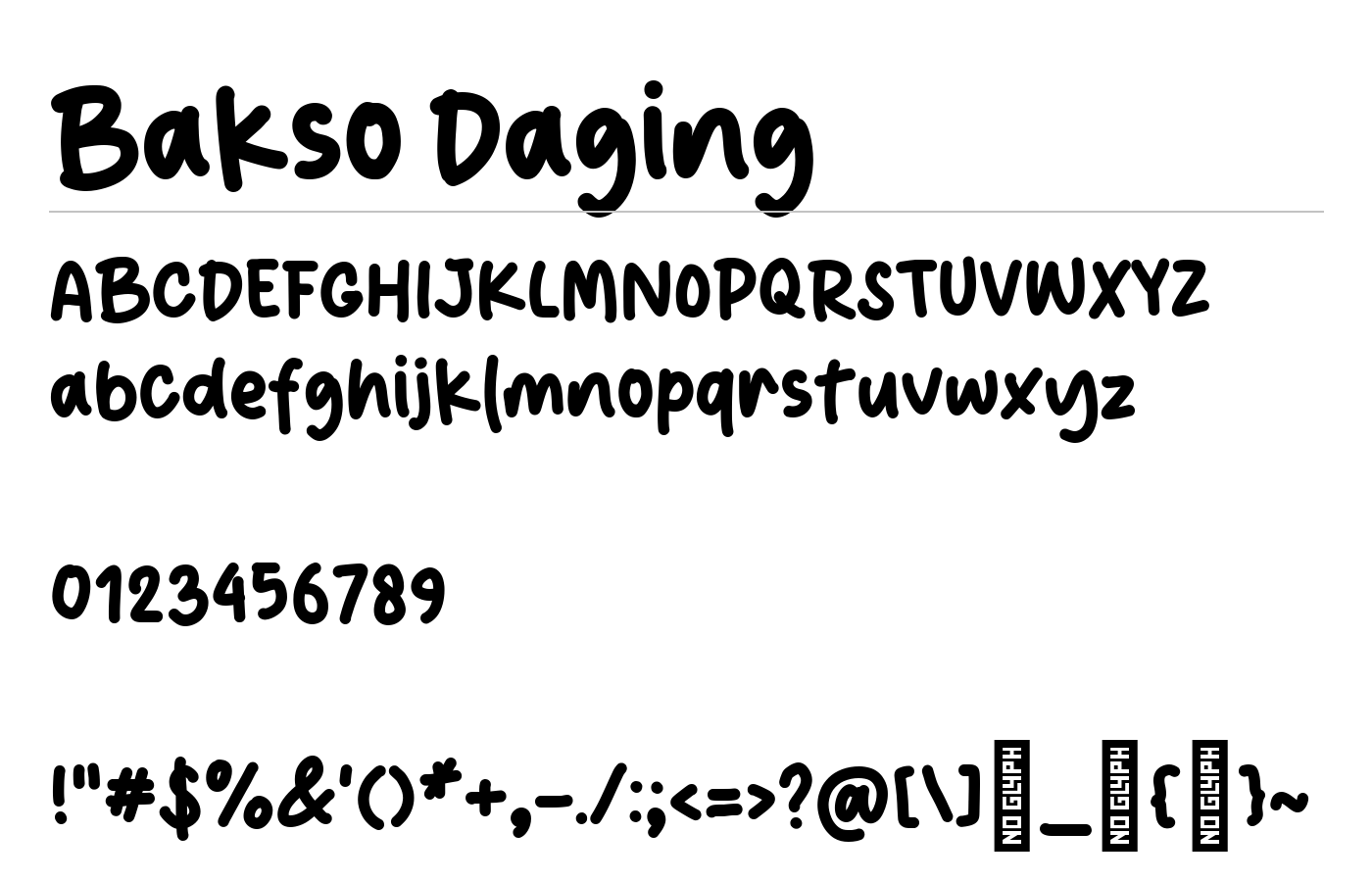
Bakso Daging is a playful and casual handwritten sans serif font, featuring rounded, bold strokes that create a friendly and approachable vibe. Its medium x-height and uneven letterforms evoke an informal, hand-drawn charm that works well for fun branding, children's materials, and creative projects. This font is ideal for headlines, logos, and packaging where a warm, personal touch is desired.
Bakso Daging Font
About Bakso Daging Font
| Font family | Bakso Daging Font |
| Designer | Hasna - Violatype |